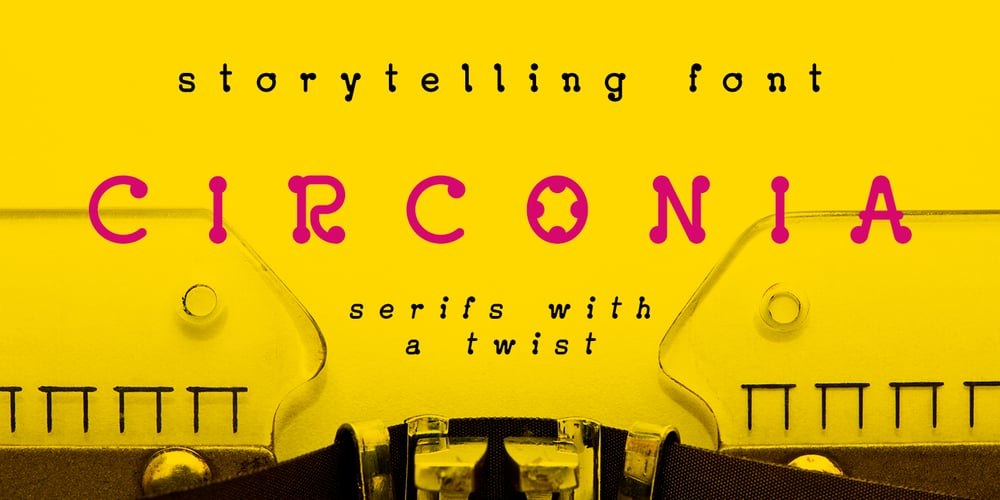
Circonia Font Family was designed by Octavian Catana and published by 8AV. Circonia contains 3 styles and family package options. Circonia is a simple font, with a soft touch on serifs. It has clean lines and friendly shape, making it perfect for informal communication such as childrens’ books, funny flyers and leaflets or food menus. It is suited both for headlines and a (larger) body copy. It has more than 300 glyphs with full western and eastern support and also basic math support. Check out the gallery page for the font info PDF with detailed info https://www.myfonts.com/fonts/8av/circonia/gallery.html